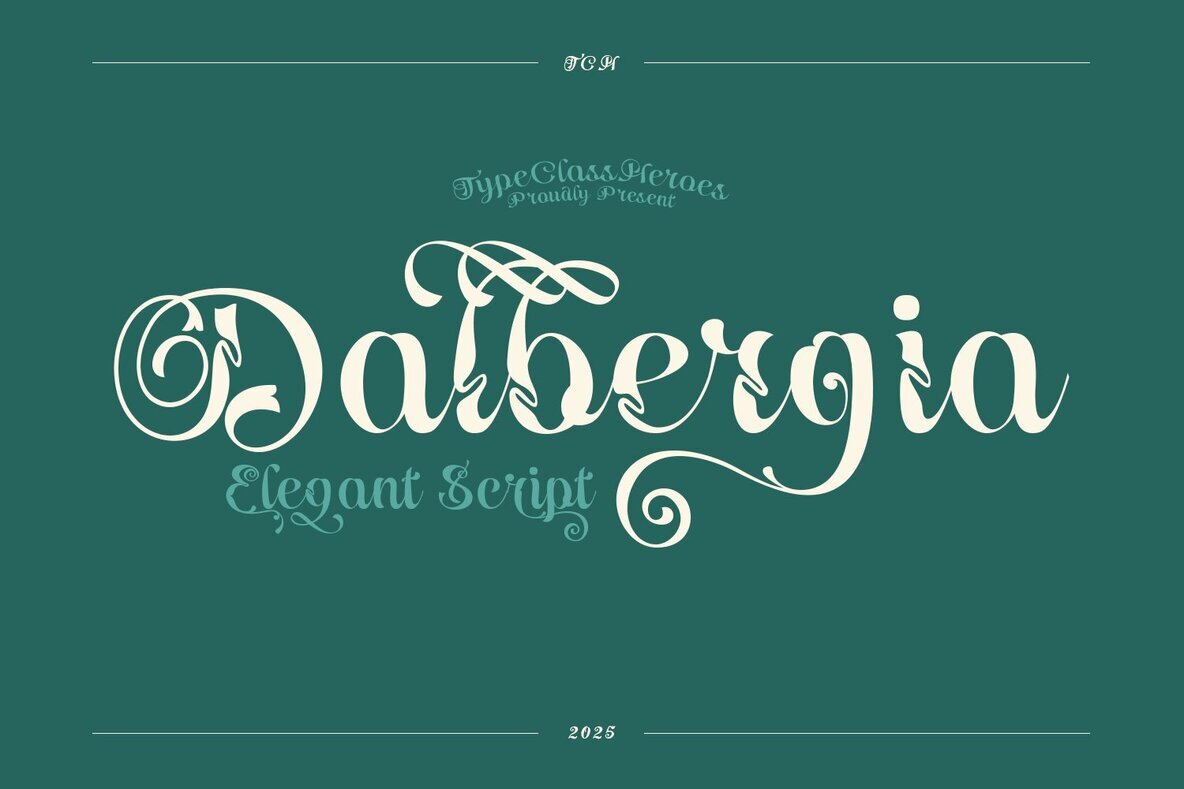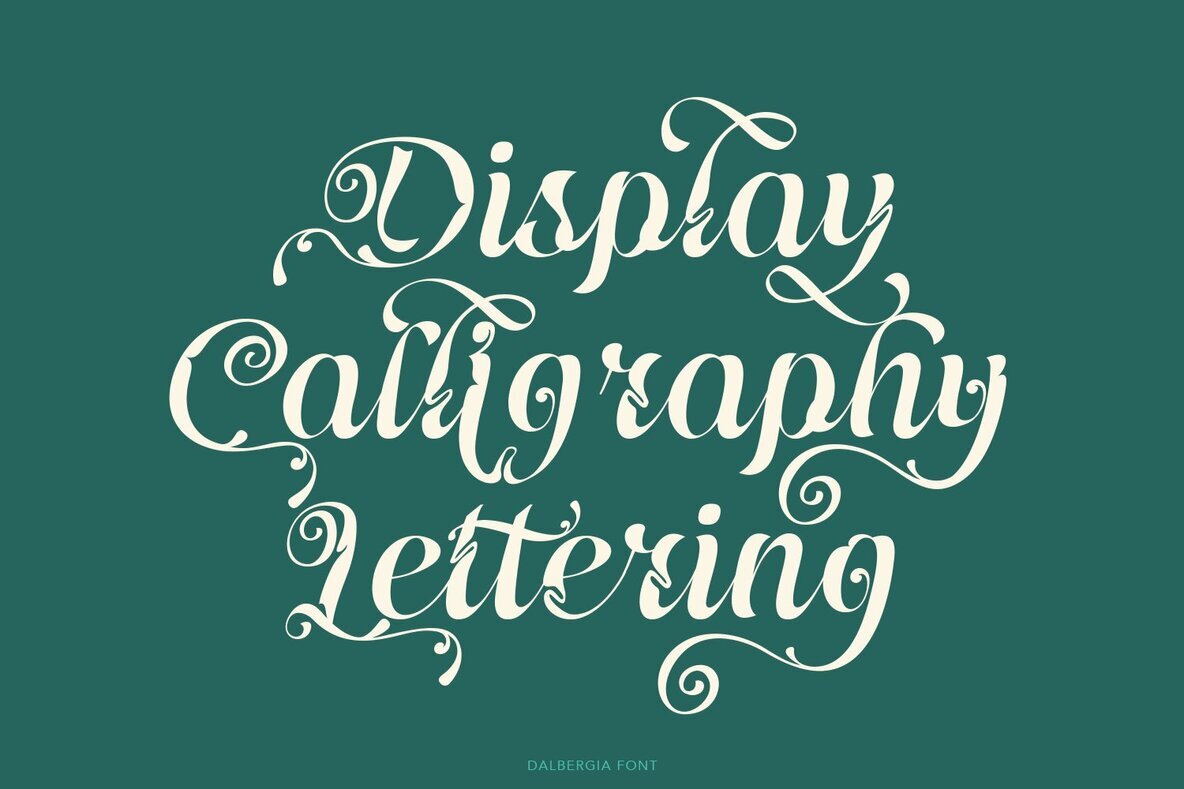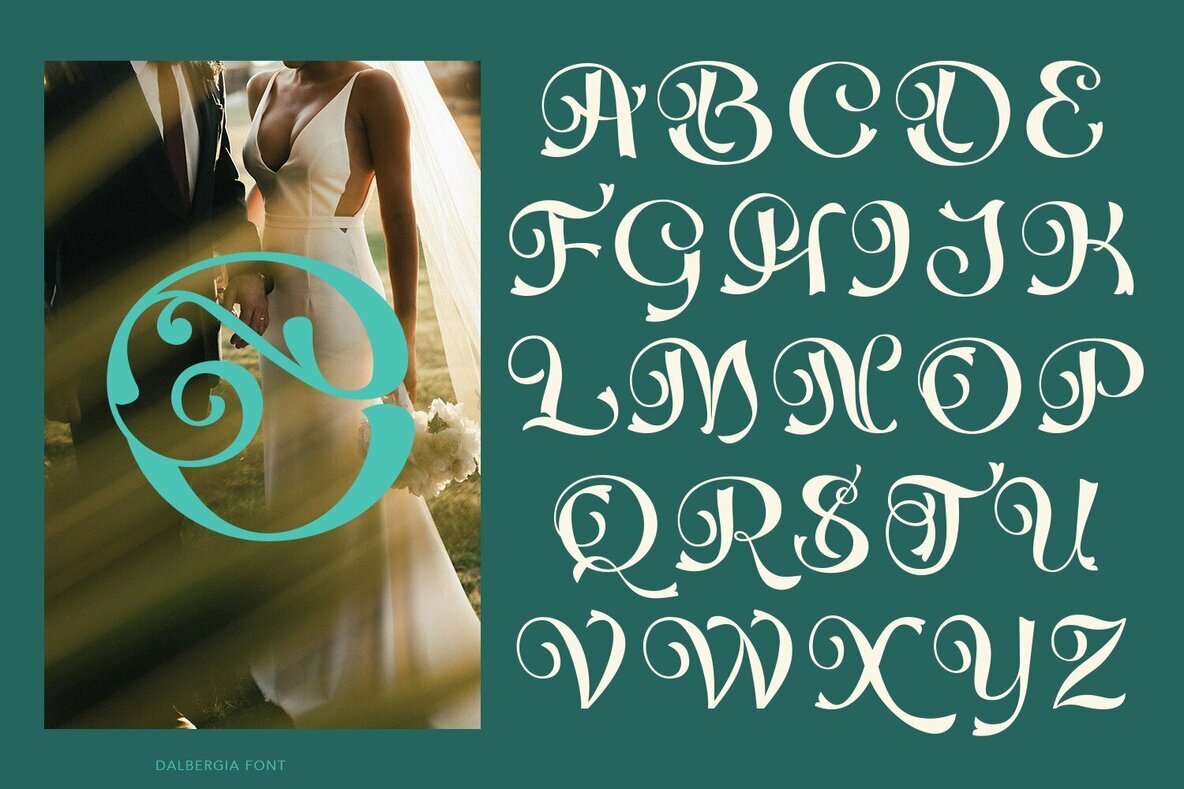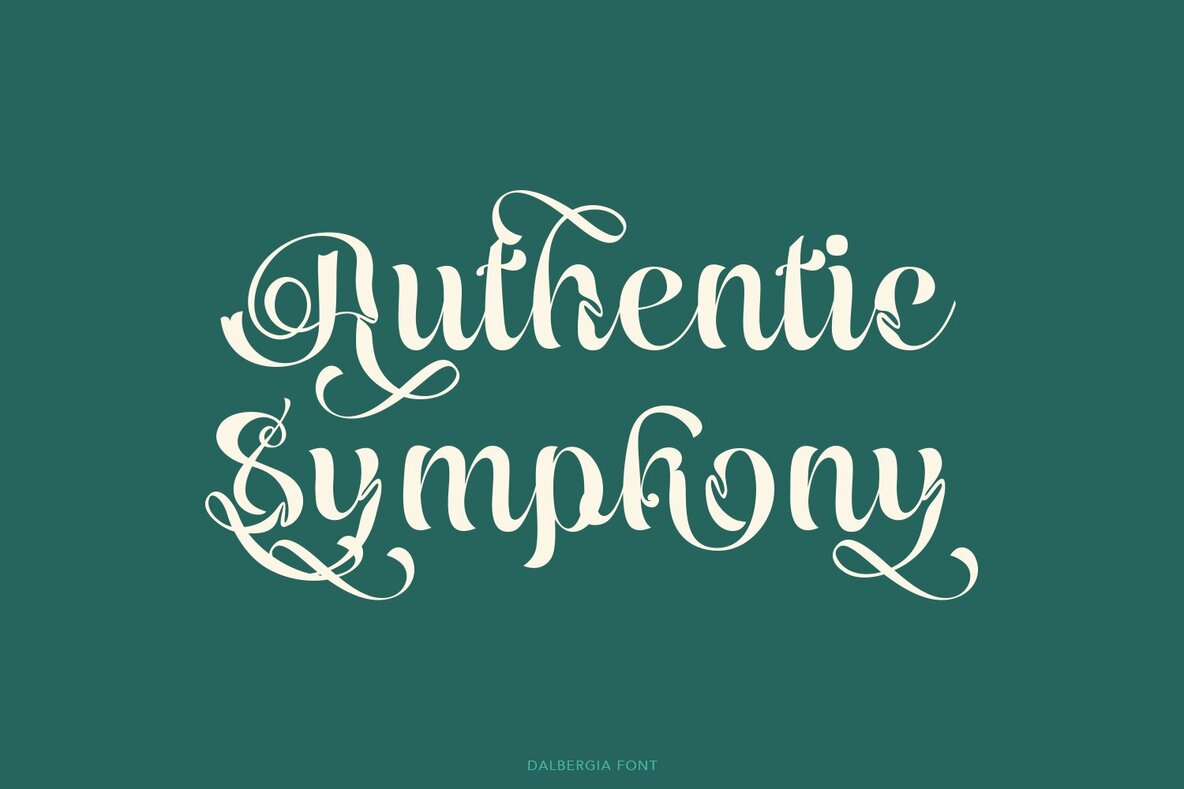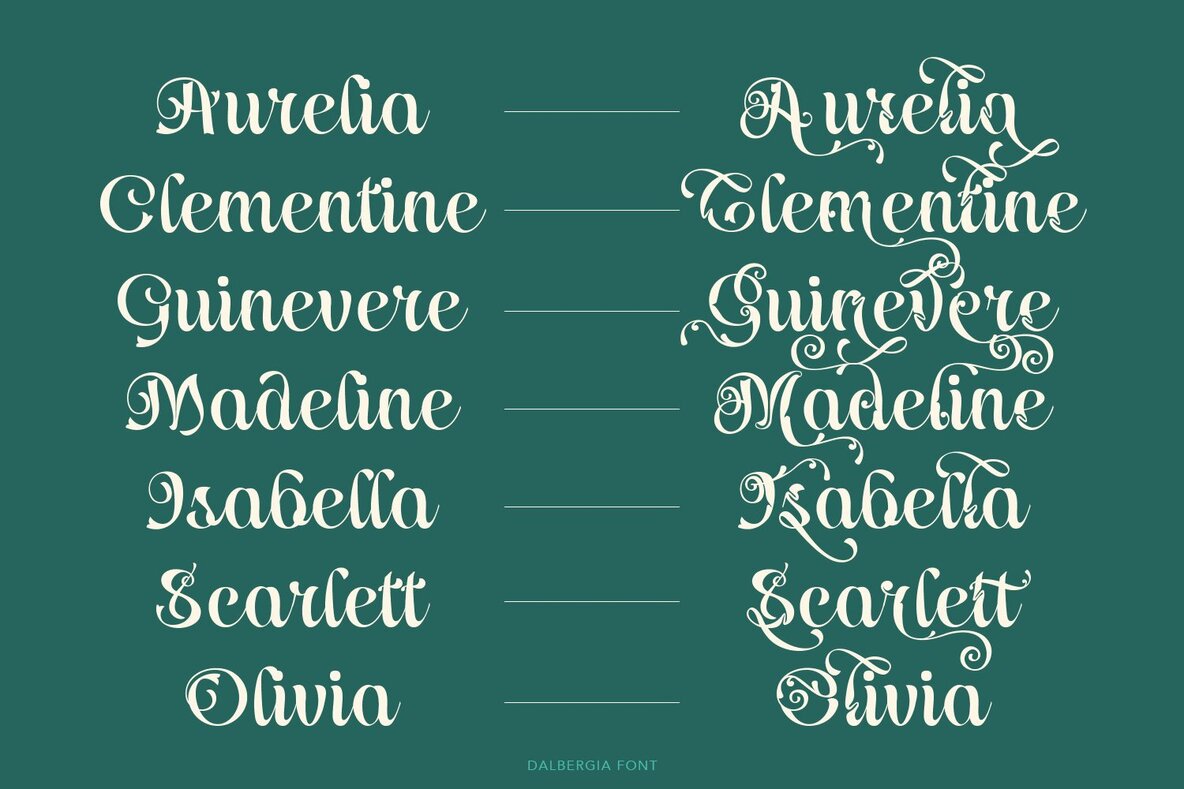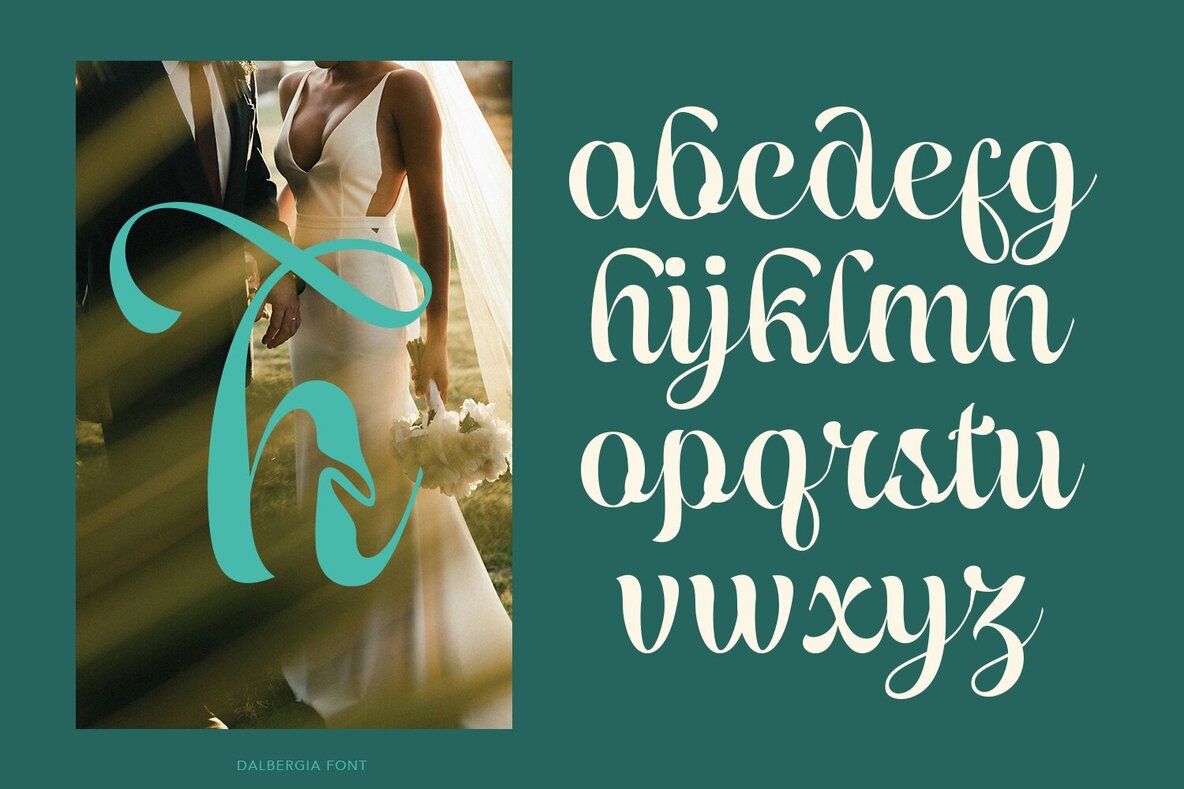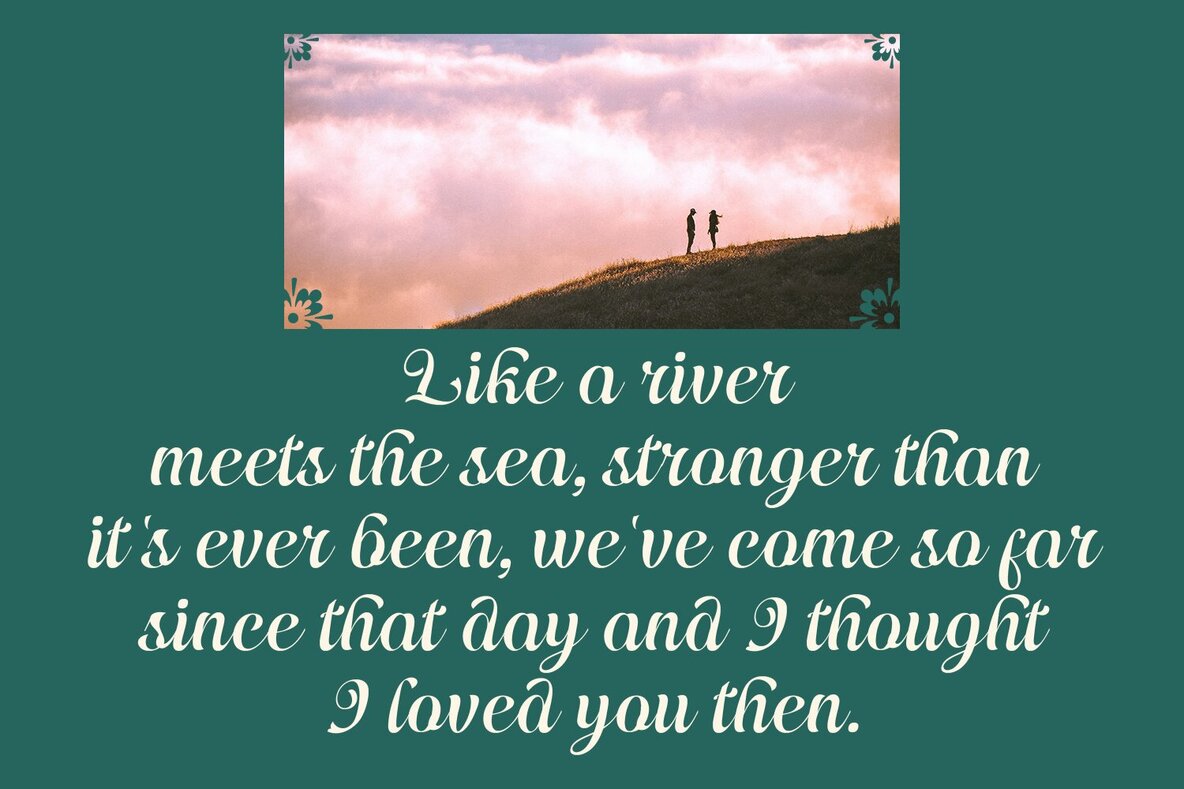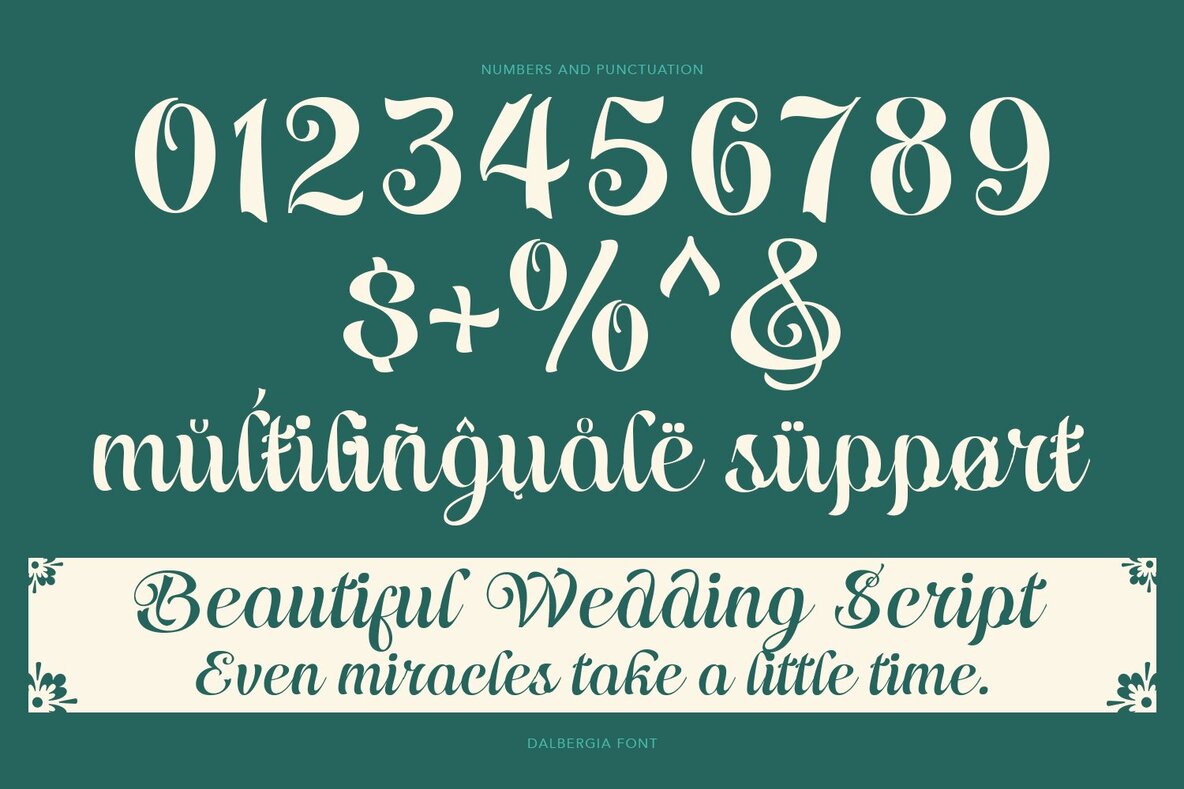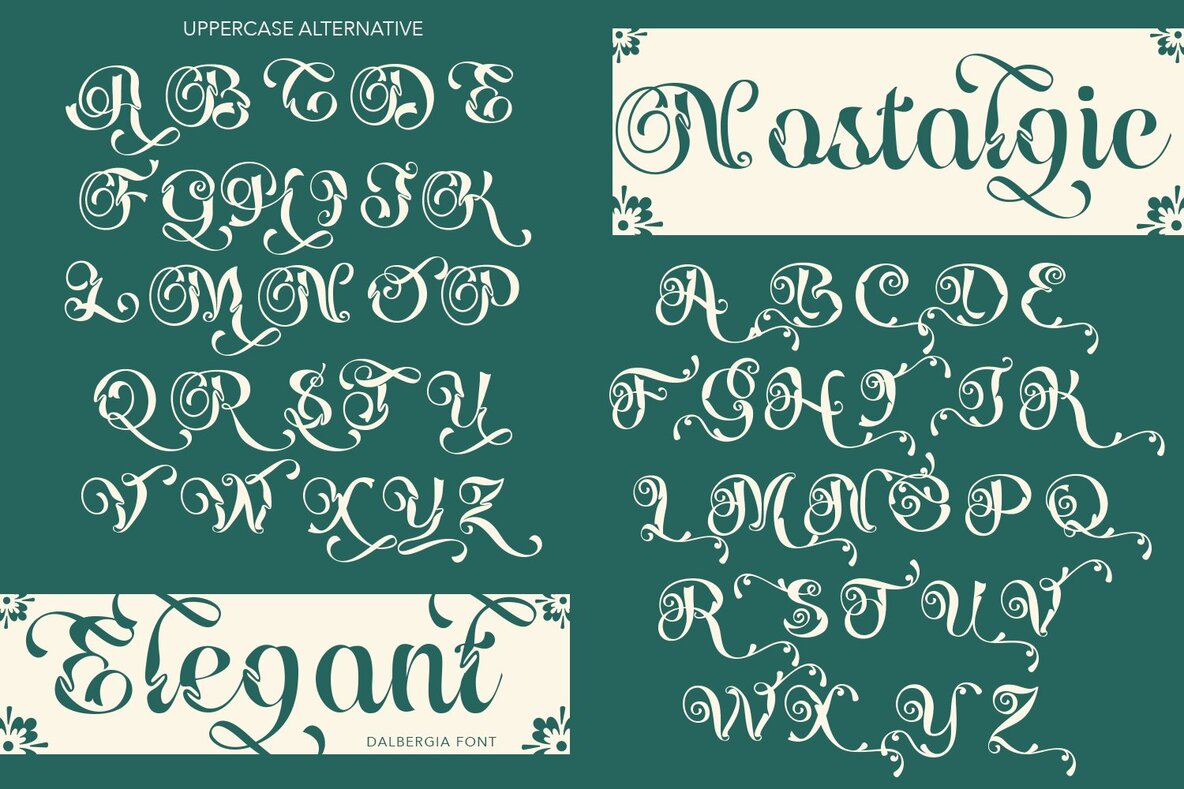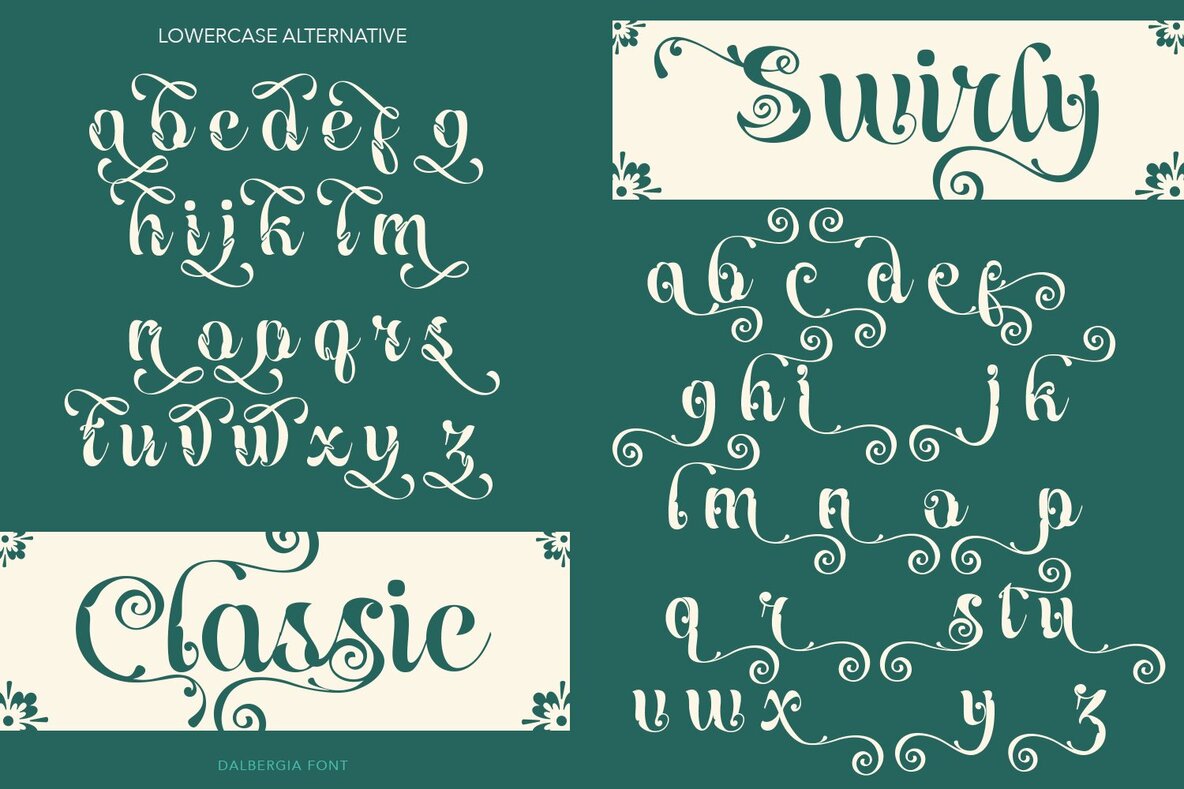
Dalbergia Font
Dalbergia Regular
Dalbergia Italic
Dalbergia offers a sophisticated script font that exudes classic charm complemented by elegant curves. This versatile font, enhanced with stylish ligatures and unique alternative glyphs, is designed to elevate your creative projects. Whether it's crafting logos, designing wedding branding, or adding a bespoke touch to social media quotes, Dalbergia provides a luxurious edge.Dalbergia: A Touch of Elegance with a Classic Script Feel